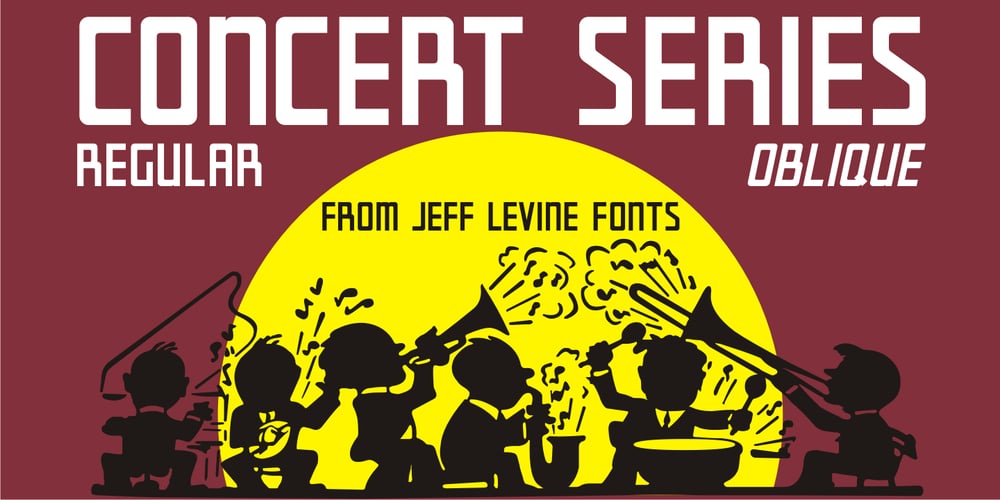
Concert Series JNL
Concert Series JNL font
Concert Series JNL Font Family was designed by published by Jeff Levine. Concert Series JNL contains 2 styles and family package options. The design of Concert Series JNL is based on hand-lettering for a 1930s-era WPA (Works Progress Administration) poster for the Federal Music Project of New York City’s symphony concerts. Held every Sunday at the Theater of Music [located at 254 West 54th Street], the admission in those Depression-era days was 25 cents and 60 cents, with all seats reserved.